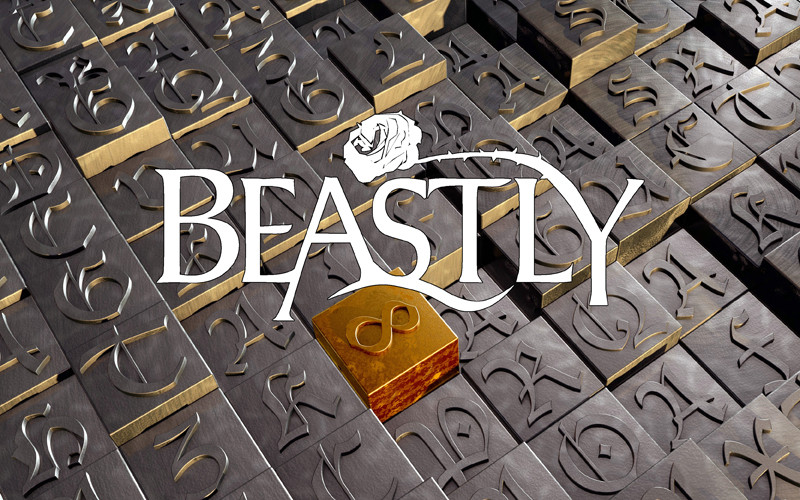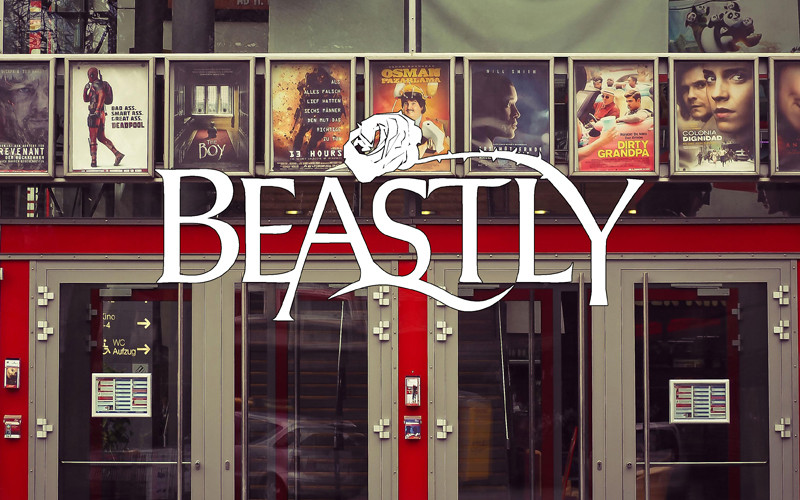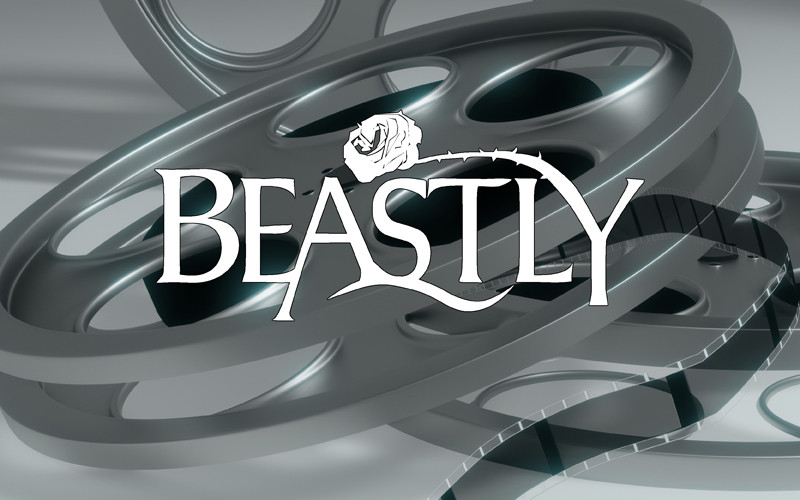
Directly from the film directed by DAVID BARNZ and starring VANESSA HUDGENS, the new font for all fans of the film.
Direttamente dal film diretto da DAVID BARNZ e interpretato da VANESSA HUDGENS, il font inedito per tutti gli estimatori del film.
Directly from the film directed by DAVID BARNZ and starring VANESSA HUDGENS, the new font for all fans of the film.
Direttamente dal film diretto da DAVID BARNZ e interpretato da VANESSA HUDGENS, il font inedito per tutti gli estimatori del film.